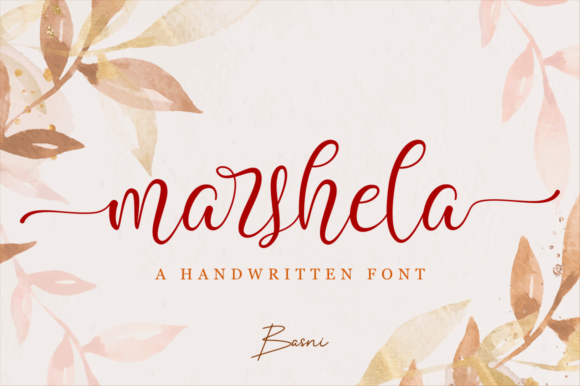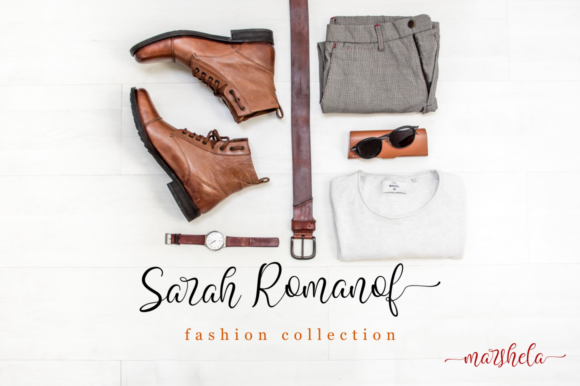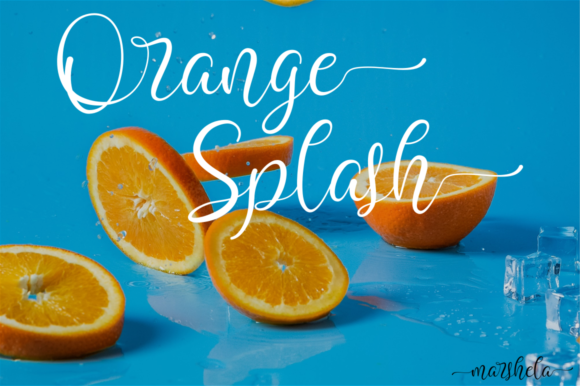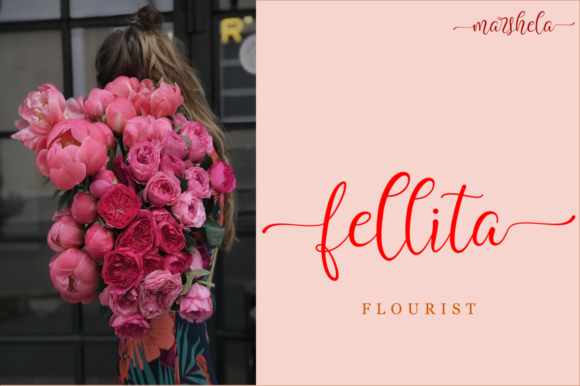
Marshela Font
About Marshela Font
Marshela is a lovely and timeless handwritten font. It is the best choice for creating eye catching logos, branding and quotes. Marshela is PUA encoded which means you can access all of the glyphs and swashes with ease!